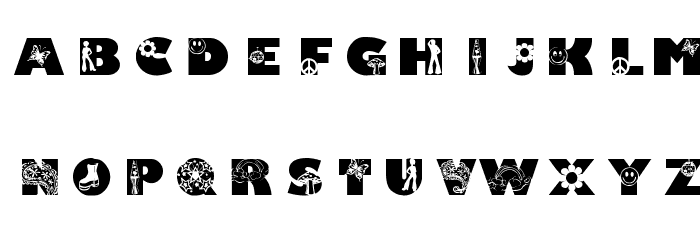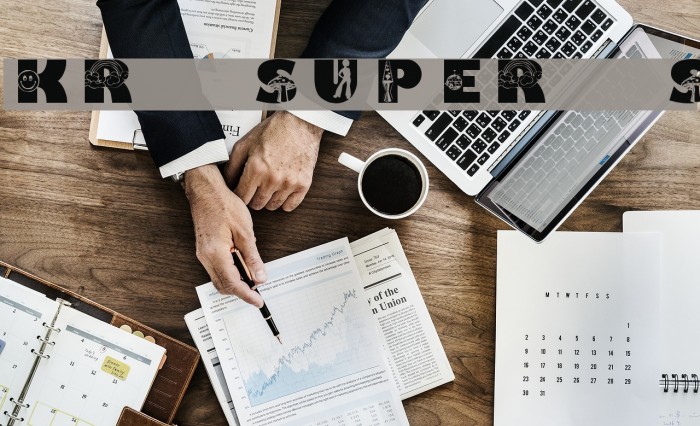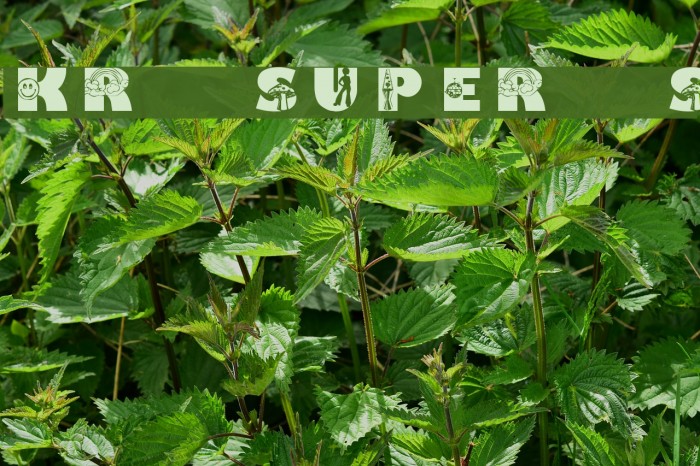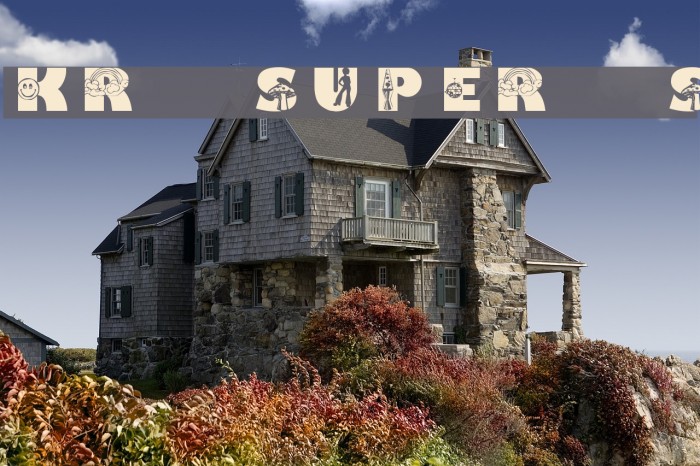
KR Super 70's Font
This font is a vibrant and playful display typeface that captures the essence of the 1970s with its bold, decorative style. Each letter is uniquely designed with intricate patterns and motifs reminiscent of the era, such as peace signs, floral designs, and abstract shapes. The characters are filled with a mix of solid and patterned areas, creating a dynamic visual effect. This font is perfect for projects that aim to evoke a sense of nostalgia or retro flair, making it ideal for themed events, posters, and creative branding. Its bold and decorative nature ensures it stands out, making it suitable for headlines and titles where a strong visual impact is desired.
A bold, decorative font inspired by the 1970s, featuring intricate patterns and motifs.
- Proposed Projects: Ideal for retro-themed events, posters, creative branding, and any project seeking a nostalgic 70s vibe.
- Overall Style: Vintage